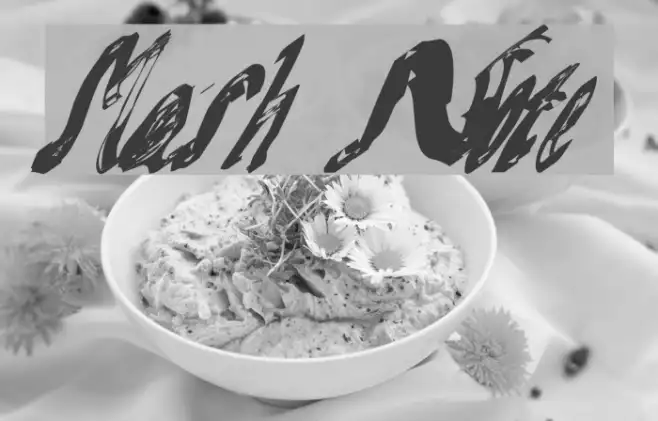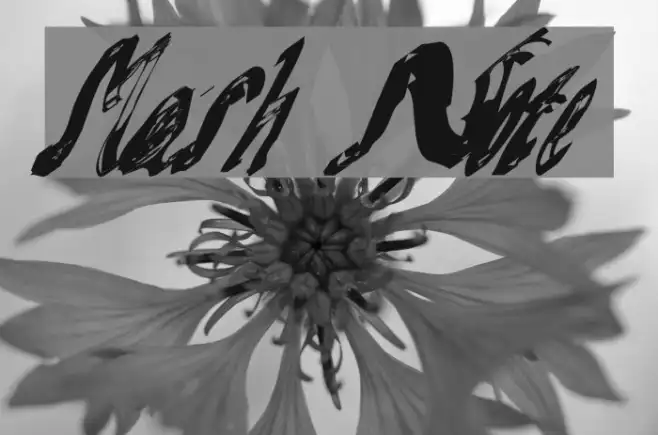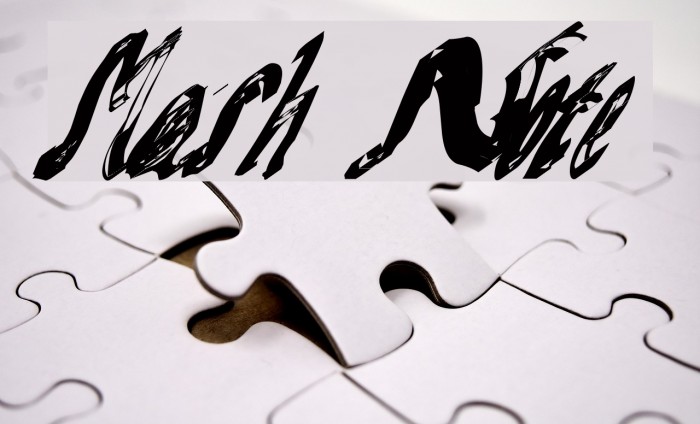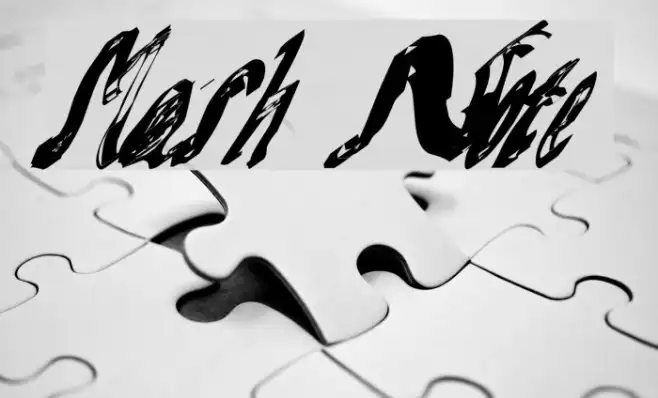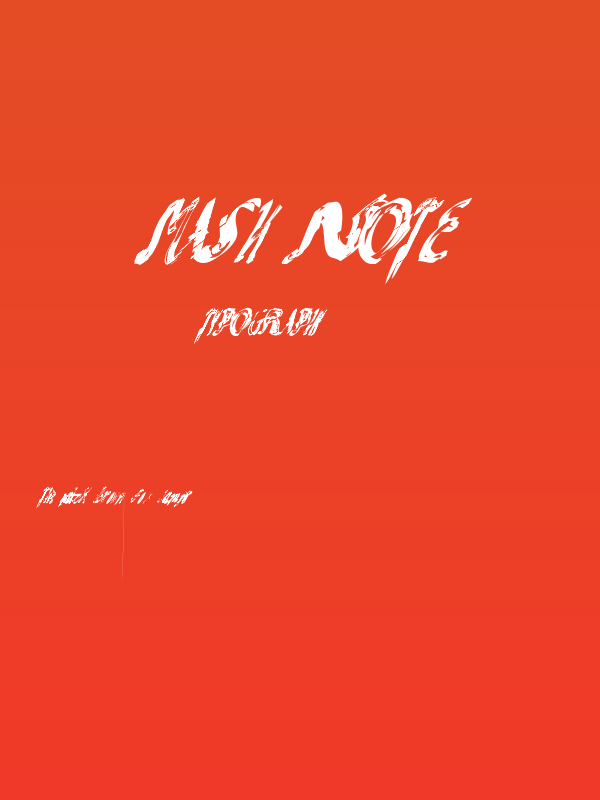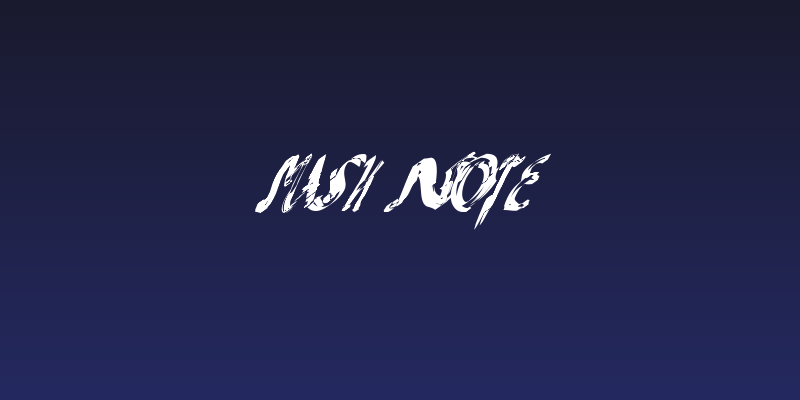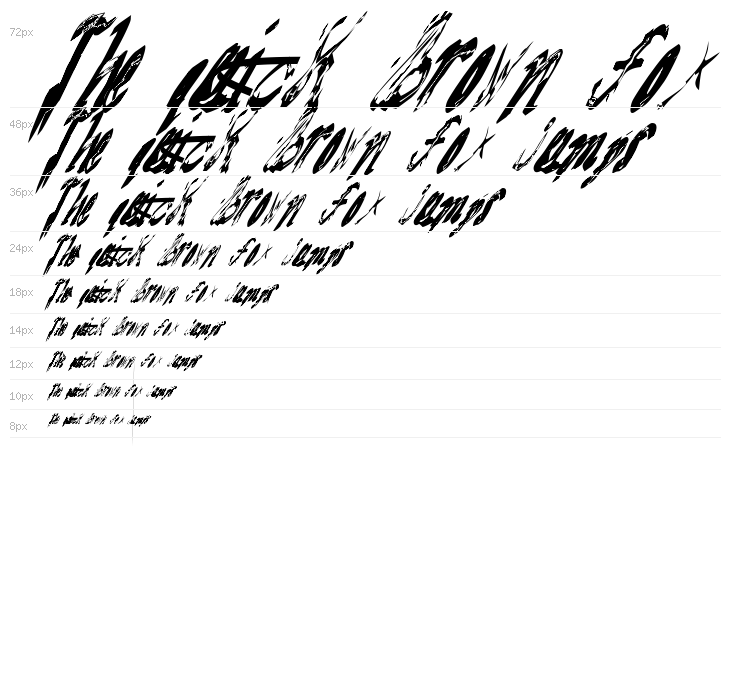
Mash Note Font
Mash Note Description
This font features a highly expressive and dynamic style, characterized by its bold, brush-like strokes that create a sense of movement and energy. The letters are irregular and vary in thickness, giving the font a hand-painted appearance. The overall look is chaotic yet artistic, with a strong emphasis on individuality and creativity. The uppercase and lowercase letters maintain a consistent flow, while the numbers and special characters integrate seamlessly into the design. This font is ideal for projects that require a bold statement and a touch of artistic flair.
| Use Case | Headlines, Logos, Artistic projects |
| Proposed Projects | Ideal for artistic posters, album covers, graffiti art, and creative branding. |